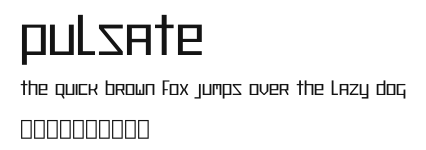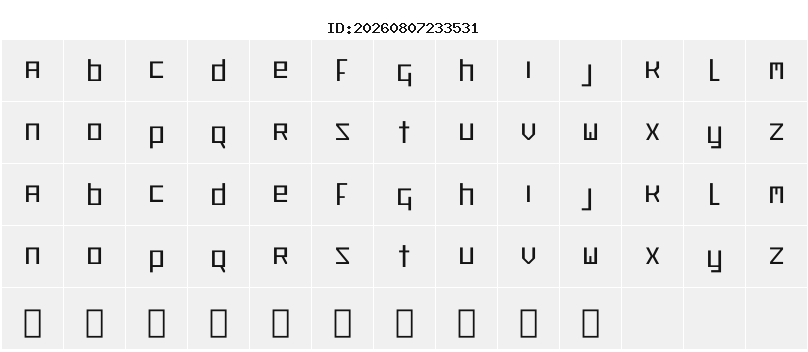
• Font Name: Pulsate
About Pulsate.ttf
Pulsate.ttf is a modern, elegant sans-serif font designed for ultimate readability and visual harmony. Perfect for branding, headlines, web design, and print materials.